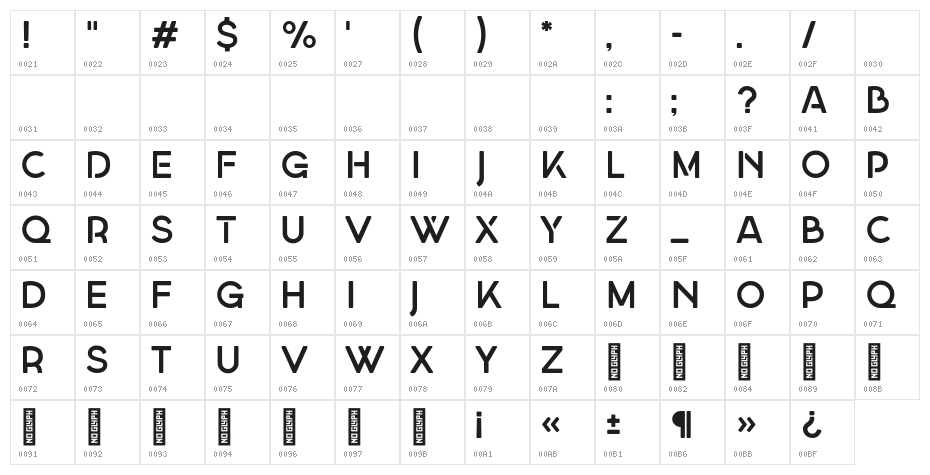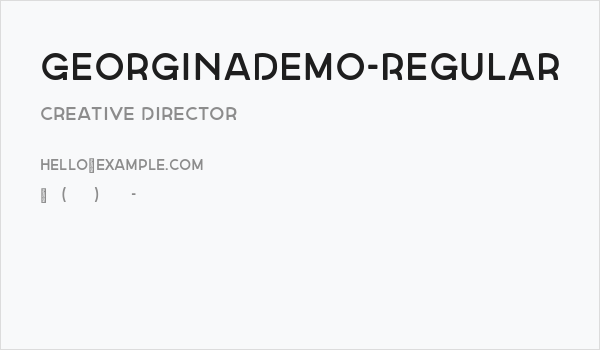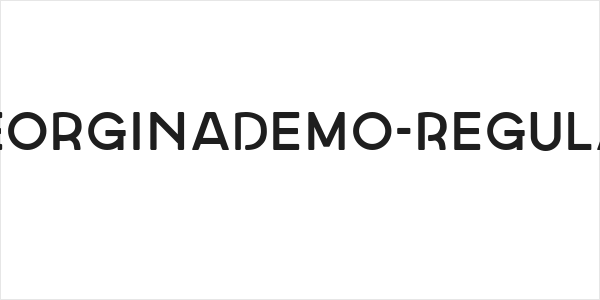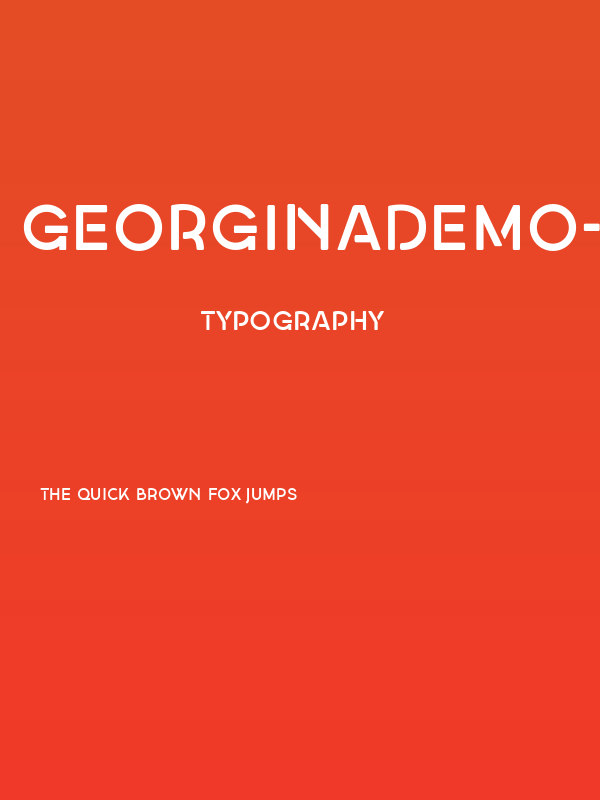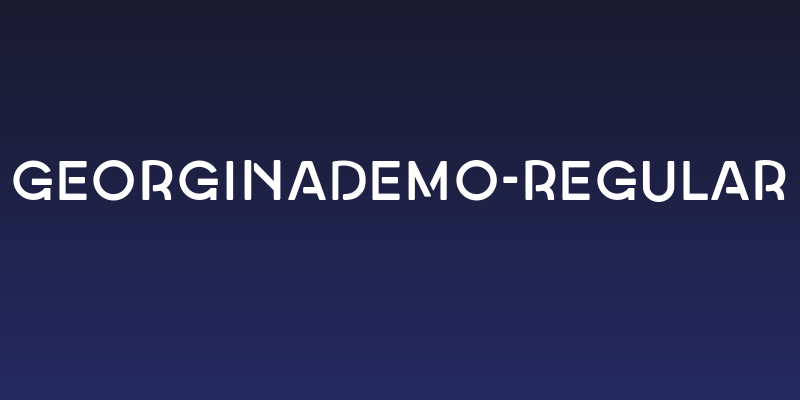
GeorginaDemo-Regular Font
GeorginaDemo-Regular Description
This font features a clean and modern aesthetic with a geometric sans-serif style. The characters are uniform in width, providing a balanced and harmonious appearance. The uppercase letters are bold and assertive, while the lowercase letters maintain a consistent and readable form. The numerals are clear and straightforward, matching the overall geometric theme. Special characters are well-integrated, ensuring versatility in various design contexts. The font's simplicity and clarity make it suitable for a wide range of applications, from digital interfaces to print media.
| Proposed Projects | Ideal for branding, web design, user interfaces, and print materials where clarity and modernity are desired. |